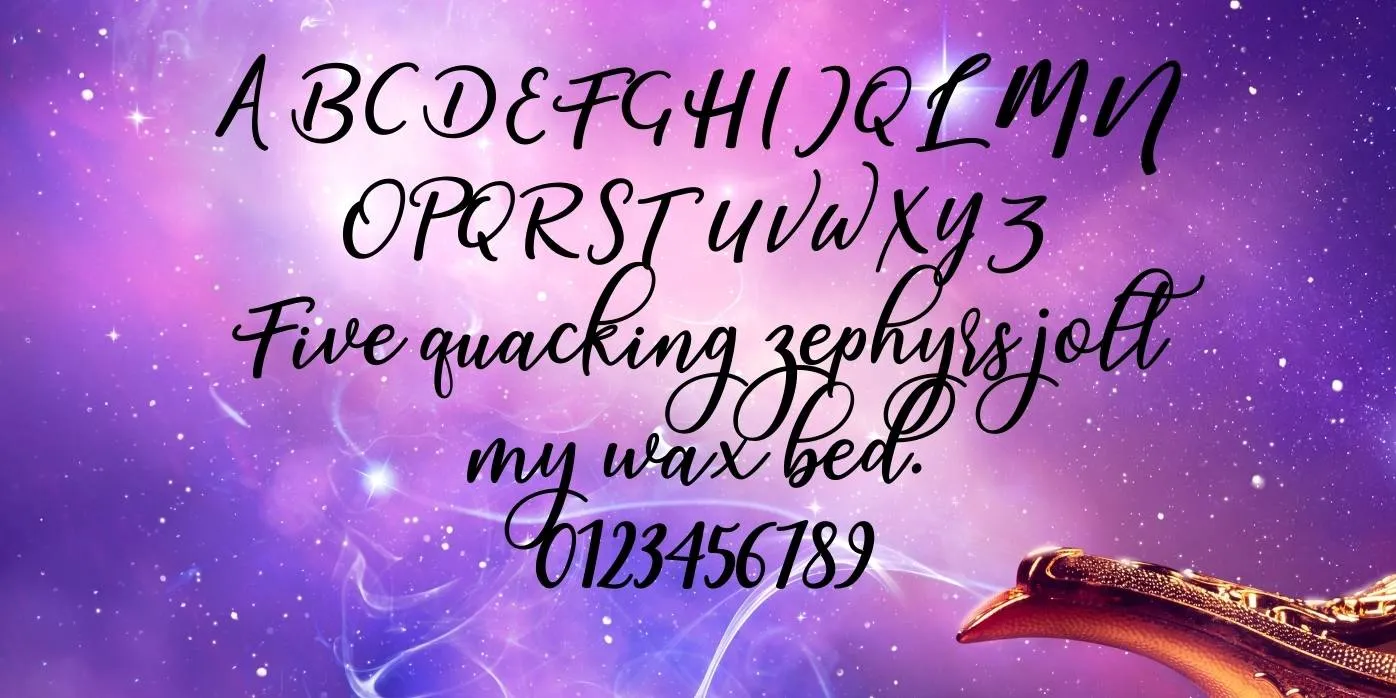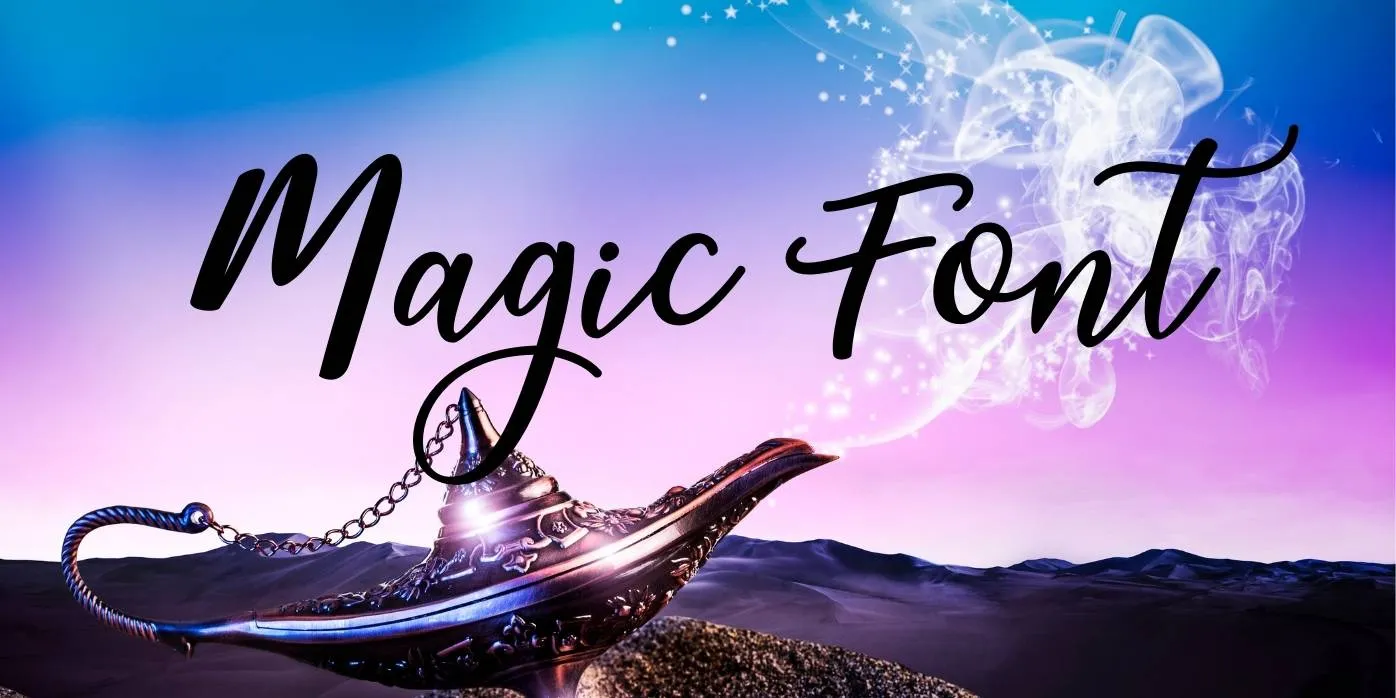
Magic Font
We are glad to present a marvelous and stylish font that earn massive fame in the market is known by the name Magic Font. This font belongs to the Calligraphy font family. This awesome font was developed by soo much hard work of very intelligent designer Mr. Letter.
This classy font is available in 123 unique and strong characters. Some of the common characters of this font are as follows Icons, symbols, numbers, punctuations, and many more. This classic font family is shared with all public by Mr. Letter Foundry.
This staggering font provides a classic and soft touch to all of your designs. This keen features font family is most suitable for all of your display, printing, and other designs. You can use its copy and paste function. Frequently, this typeface is best for making logos, posters, invitation cards, and so on.